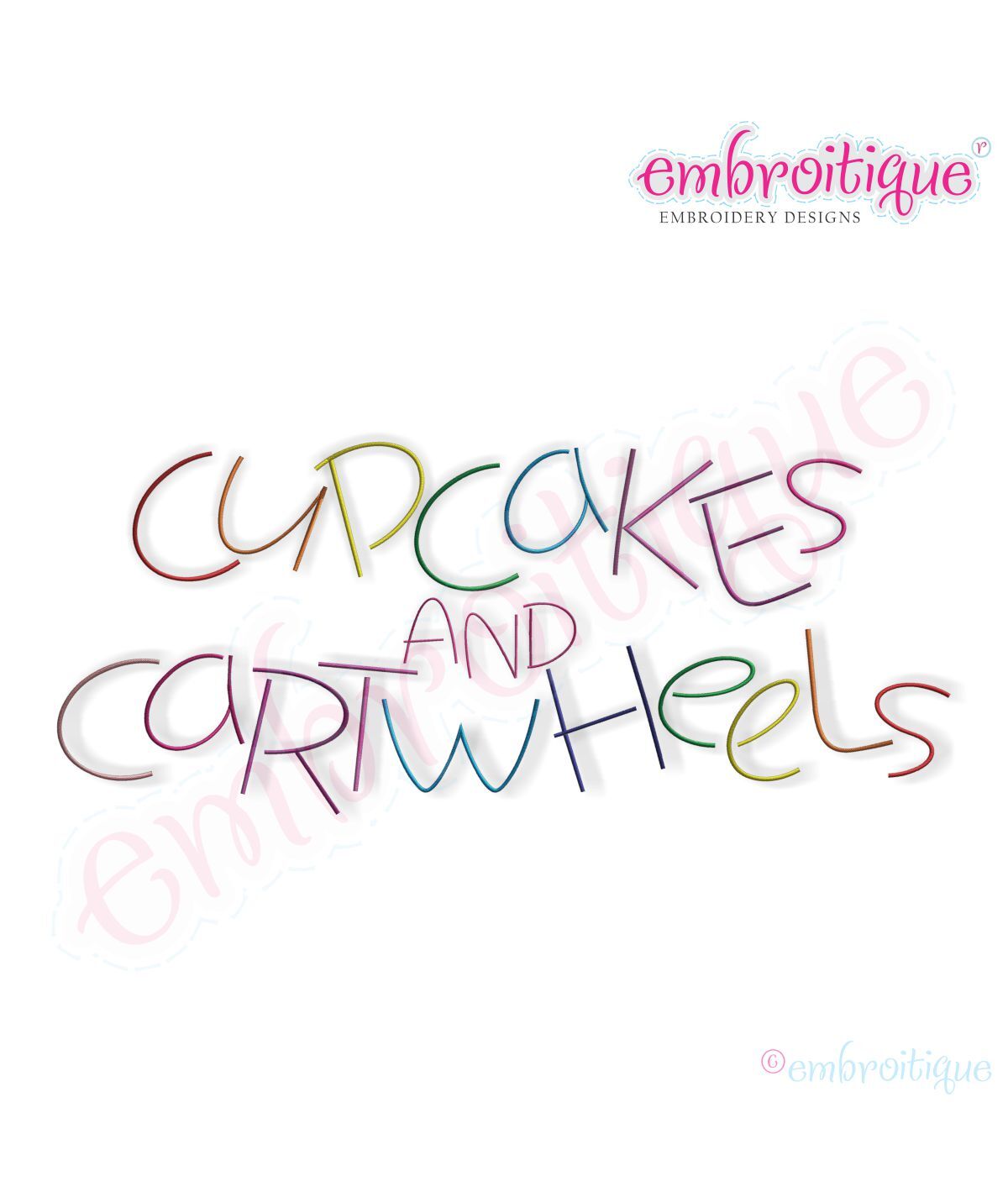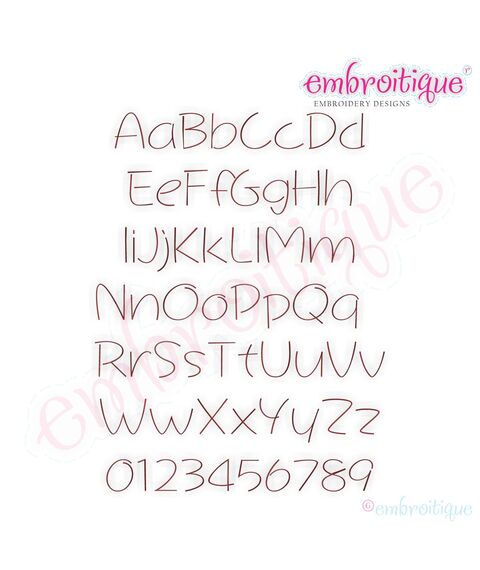
Cupcakes and Cartwheels Monogram Font Set
This is such a fun set especially for kids! Use this set to create your own names, sayings, and monograms!  Includes letters capital A-Z, lowercase a-z and numbers 0-9 in each size listed. Â